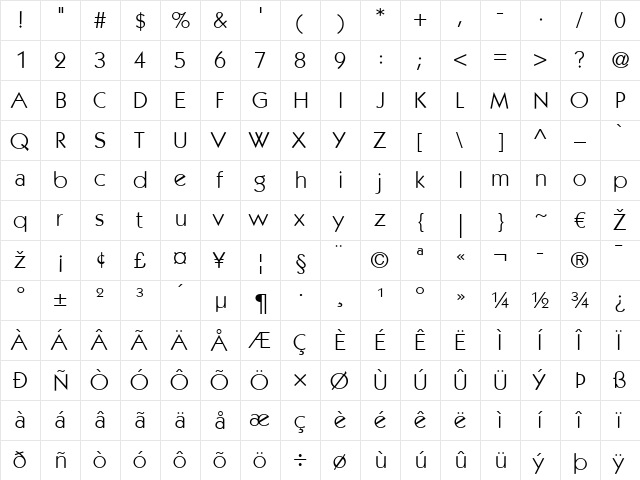
ITCKabel LT Book Regular Font Preview
ITCKabel LT Book Regular
ITCKabel LT Book Regular Font Details
Design Context for ITCKabel LT Book Typeface
ITCKabel LT Book is a composed and adaptable typeface that performs quietly and consistently across a wide range of design contexts. The delicate stroke weight brings airiness and refinement to layouts.
Pro Tip: Use ITCKabel LT Book in both headline and body roles to test its range before committing to a single application.